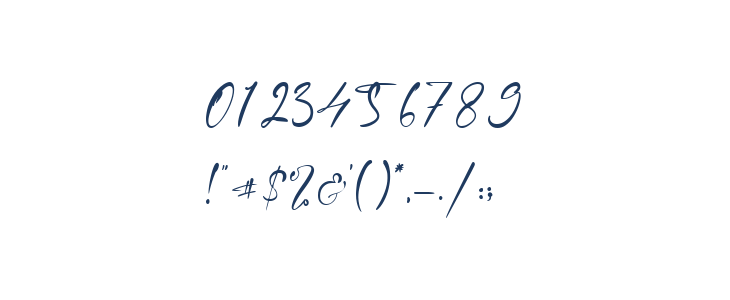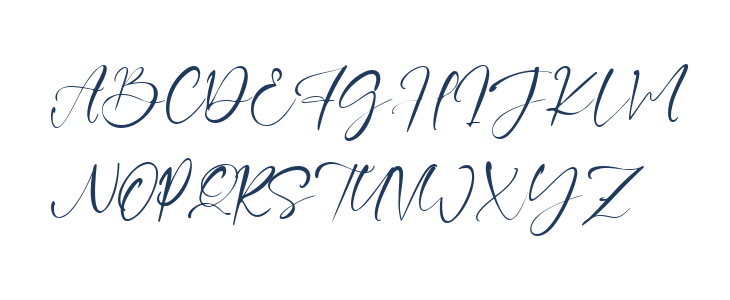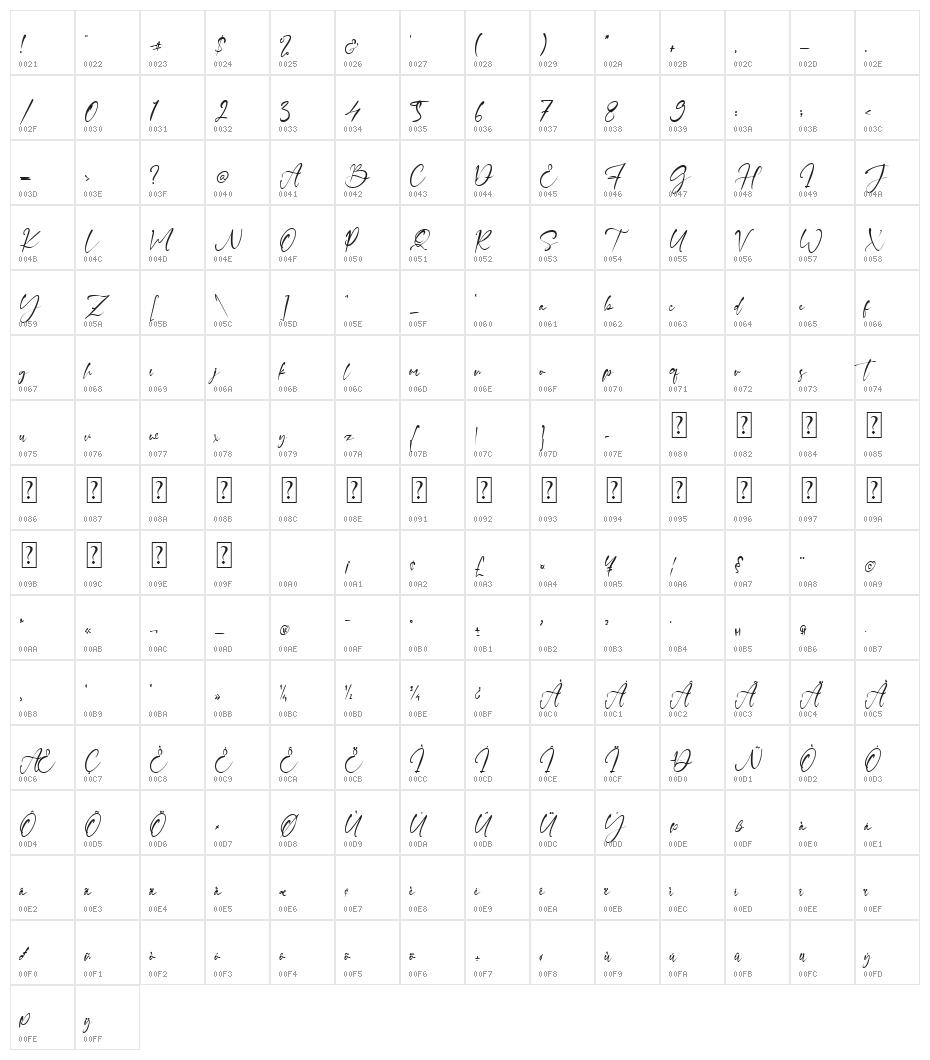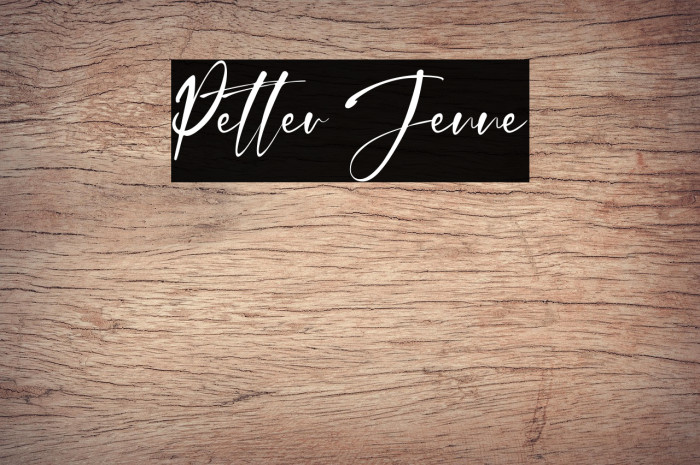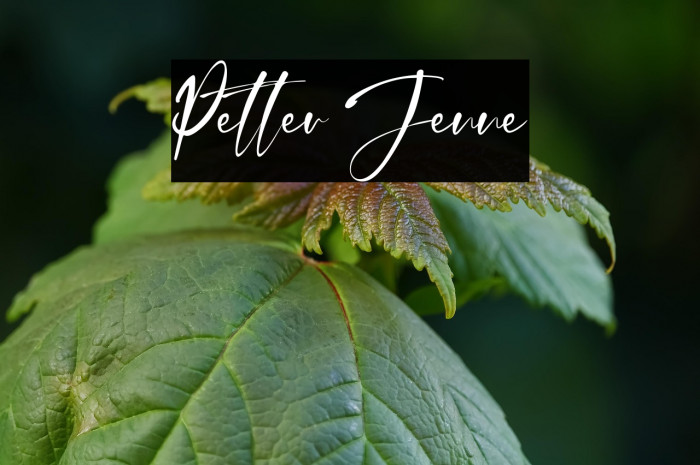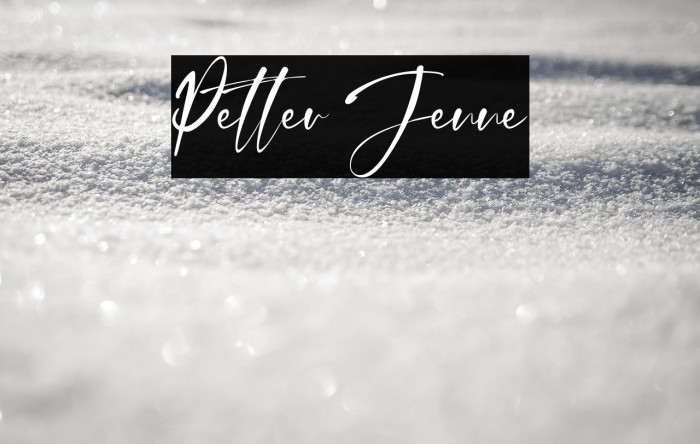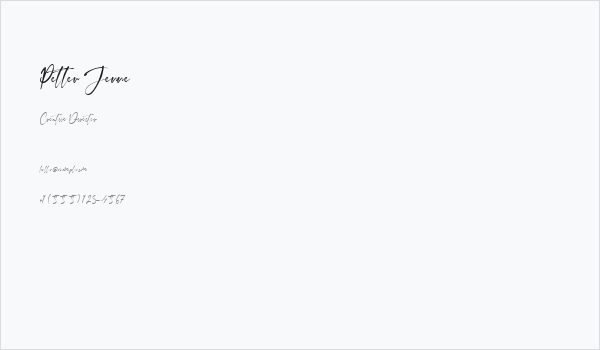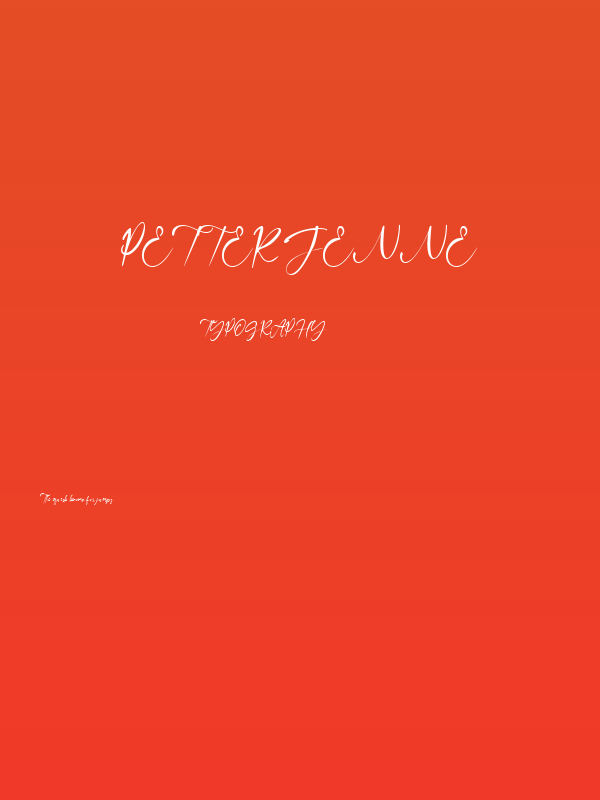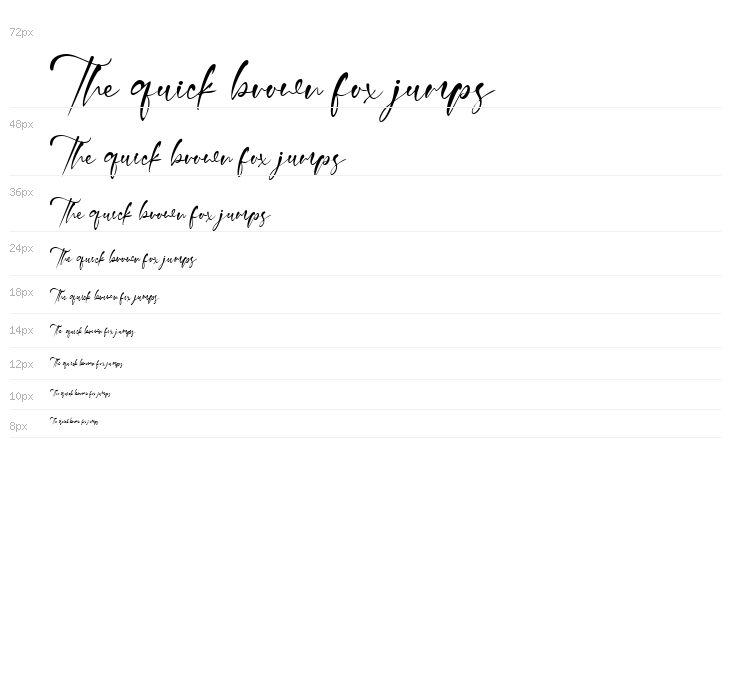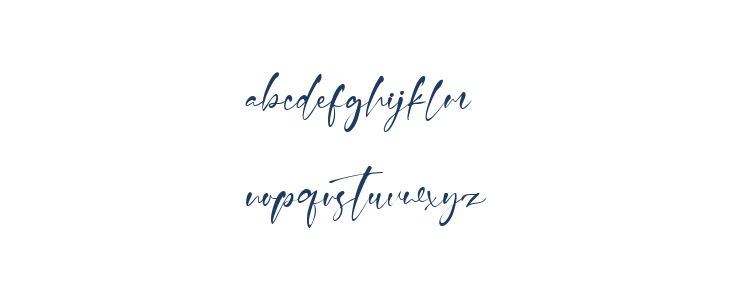
Petter Jenne Font
Petter Jenne Description
Elegant, flowing script font with a handwritten appearance, featuring high contrast between thick and thin strokes and decorative swashes on many characters.
| Overall Style | Decorative, Elegant, Handwritten |
| Use Case | Logos, Invitations, Headlines, Decorative text |
| Proposed Projects | Wedding invitations, greeting cards, branding, social media graphics, event posters. |